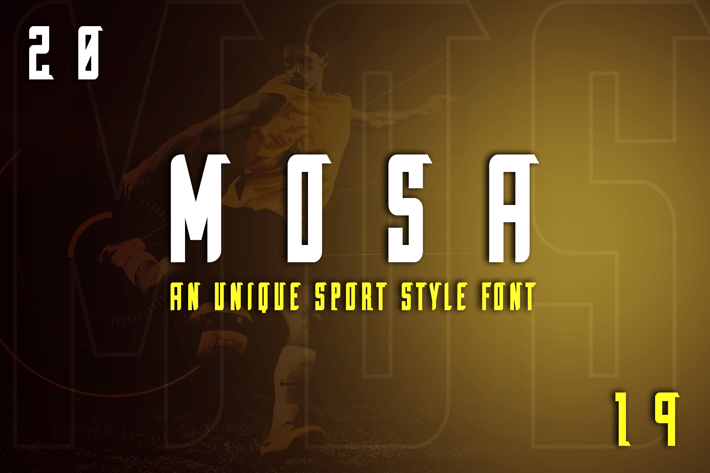
Mosa Exclusive Display Font
Mosa Exclusive Clean Display font, is our new item that suitable for your team logo, or community logo.
Great for Logo, Sticker, Jersey, Invitation Card, Brochure, etc.